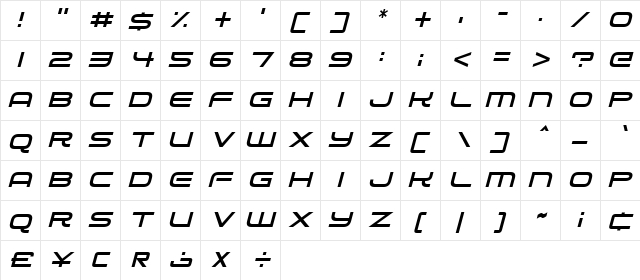
Alien Robot Italic Font Preview
Alien Robot Italic
Alien Robot Italic Font Details
Design Context for Alien Robot Typeface
Alien Robot takes a measured approach to typography — its balanced proportions and neutral character make it a reliable workhorse for both digital and print work. The slanted form adds forward momentum and visual energy.